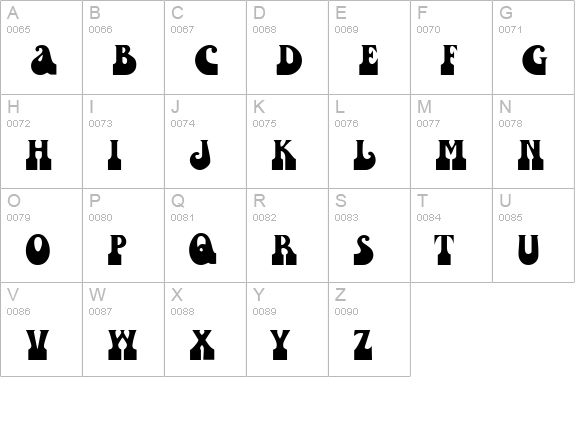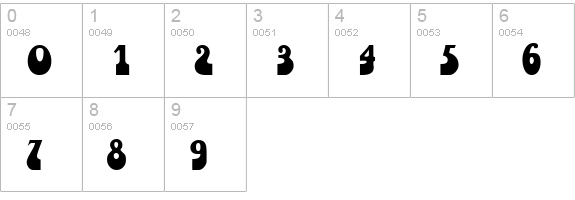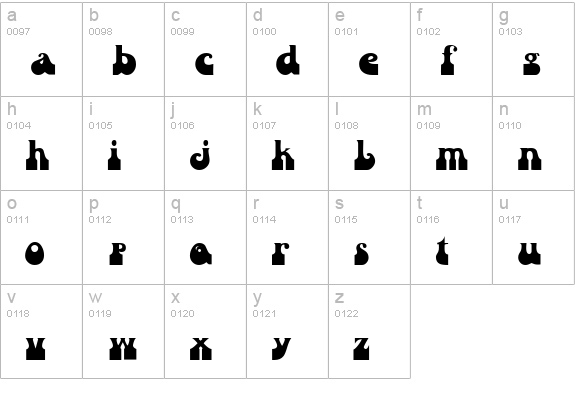
RaindropTooSSK Bold Font Details
RaindropTooSSK Bold is a strong, high-contrast variant in the RaindropTooSSK typeface family \xE2\x80\x94 well suited to headlines, attention-grabbing titles, and strong calls-to-action.
Introducing RaindropTooSSK Bold, a captivating and eye-catching font that is sure to make a bold statement in any design project. This striking typeface exudes confidence and modernity, making it the perfect choice for headlines, logos, posters, and more. RaindropTooSSK Bold features a unique and innovative design, with its sharp edges and strong presence. Its bold weight adds an extra level of emphasis, ensuring that your message will not go unnoticed. Whether you're designing for print or digital, this font will effortlessly grab attention and leave a lasting impression. With RaindropTooSSK Bold, your creativity knows no bounds. This versatile typeface can be used for a wide range of projects, from fashion and beauty to technology and sports. Its sleek and contemporary aesthetic adds a touch of sophistication to any design, elevating it to new heights. And the best part? RaindropTooSSK Bold is available for free download at FontsMarket.com. Yes, you heard it right - this exceptional font can be yours without spending a dime. Simply visit FontsMarket.com and unlock endless possibilities for your design endeavors. So why wait? Download RaindropTooSSK Bold today and unleash your imagination. With its bold and dynamic nature, this font will effortlessly elevate your designs and make them stand out from the crowd. Don't miss out on this incredible opportunity to enhance your creative projects with a font that is not only visually stunning but also freely available at FontsMarket.com.